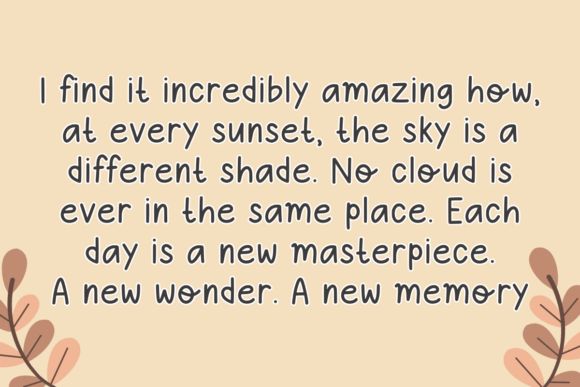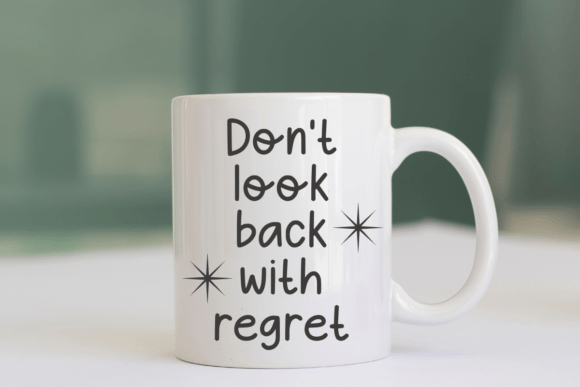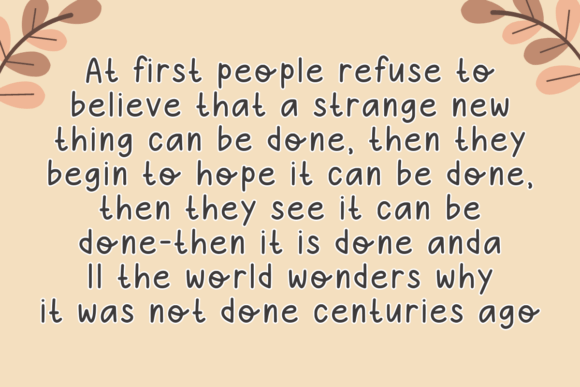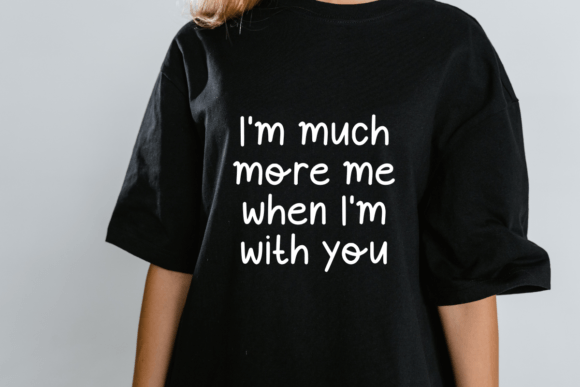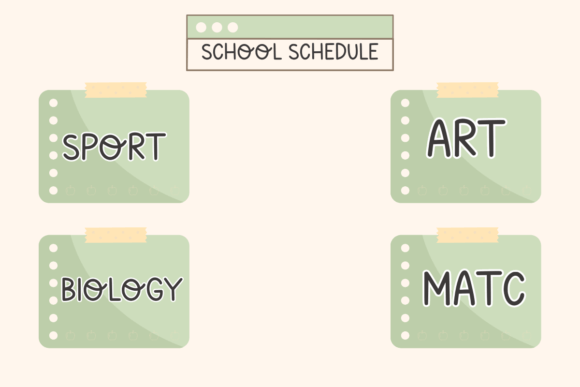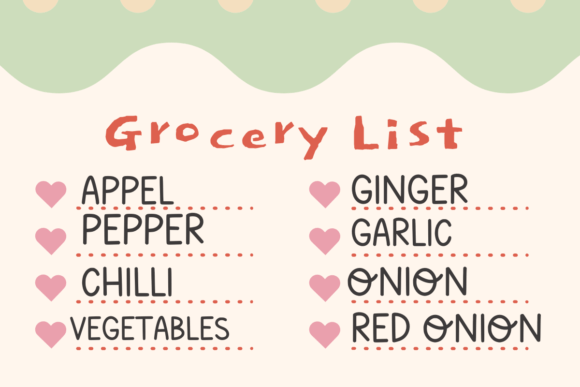
Introducing Hand Write Font: The Perfect Addition to Your Creative Projects
Are you a designer, crafter, or DIY enthusiast looking for a unique and playful font to add a personal touch to your projects? Look no further than Hand Write Font, a cute and quirky sans serif font with a feminine touch and natural, playful strokes. In this article, we’ll explore the features and benefits of Hand Write Font, and how it can elevate your creative projects to the next level.
What is Hand Write Font?
Hand Write Font is a versatile and charming font that is perfect for a wide range of creative projects. It includes uppercase, lowercase letters, and punctuation, making it a comprehensive font that can be used for various applications. The font’s sans serif design gives it a clean and modern look, while its playful strokes add a touch of whimsy and personality.
Features of Hand Write Font
- Cute and quirky design: Hand Write Font has a unique and charming design that is sure to capture attention and add a personal touch to your projects.
- Feminine touch: The font’s feminine touch makes it perfect for projects that require a delicate and elegant feel.
- Natural, playful strokes: The font’s playful strokes give it a natural and hand-written feel, making it perfect for projects that require a personal and creative touch.
- Comprehensive character set: Hand Write Font includes uppercase, lowercase letters, and punctuation, making it a versatile font that can be used for various applications.
Uses of Hand Write Font
Hand Write Font is a versatile font that can be used for a wide range of creative projects, including:
- Journals and planners: Add a personal touch to your journals and planners with Hand Write Font’s playful and feminine design.
- Scrapbooking: Use Hand Write Font to add captions and titles to your scrapbook pages, giving them a personal and creative touch.
- Stickers and labels: Hand Write Font is perfect for creating cute and quirky stickers and labels for your craft projects.
- Women’s t-shirts and apparel: Use Hand Write Font to create unique and feminine designs for women’s t-shirts and apparel.
- Interior KDPs and publishing: Add a personal touch to your interior KDPs and publishing projects with Hand Write Font’s playful and elegant design.
- Canva projects: Use Hand Write Font to create stunning Canva projects, including social media graphics, presentations, and more.
- Quotes and posters: Hand Write Font is perfect for creating inspiring quotes and posters with a personal and creative touch.
Benefits of Using Hand Write Font
Using Hand Write Font in your creative projects offers several benefits, including:
- Unique and personalized designs: Hand Write Font’s playful and feminine design gives your projects a unique and personalized touch.
- Easily readable: The font’s sans serif design and clear strokes make it easily readable, even at small sizes.
- Versatile: Hand Write Font can be used for a wide range of creative projects, making it a valuable addition to your font collection.
- Time-saving: With Hand Write Font, you can create stunning designs in no time, thanks to its comprehensive character set and easy-to-use design.
| Font Name | Hand Write Font |
In conclusion, Hand Write Font is a charming and versatile font that is perfect for designers, crafters, and DIY enthusiasts looking to add a personal touch to their creative projects. With its cute and quirky design, feminine touch, and natural, playful strokes, Hand Write Font is sure to elevate your projects to the next level. Whether you’re creating journals, scrapbooks, stickers, or apparel, Hand Write Font is a valuable addition to your font collection.